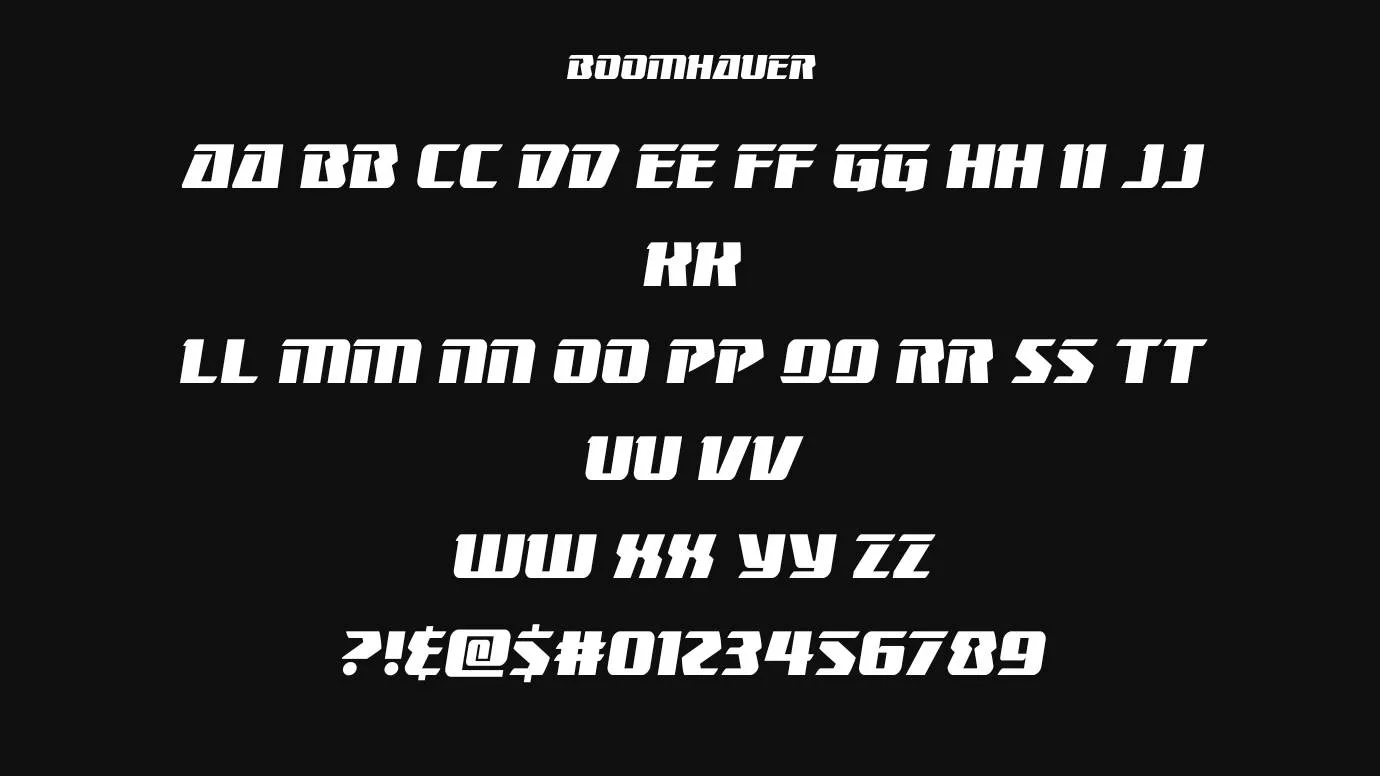
Boomhauer Font is a very attractive and nice techno-type Sci-Fi font and it was designed by Daniel Zadorozny and manufactured by Iconain Fonts.
Many famous designers utilize it for creating website designs and graphic designs. It also works well with Adobe Photoshop, CSS, and Canva. You can print it on T-shirts, mugs, photography albums, book covers, fashion magazine covers, and novel covers.
Boomhauer Font